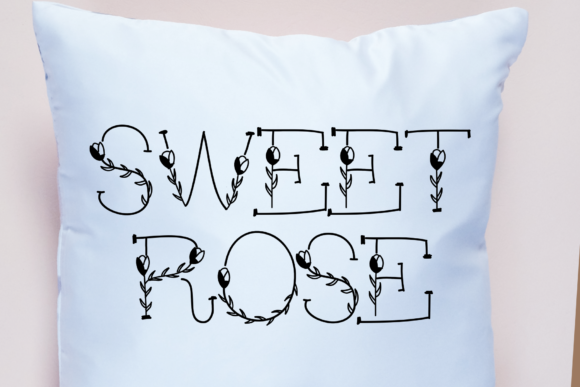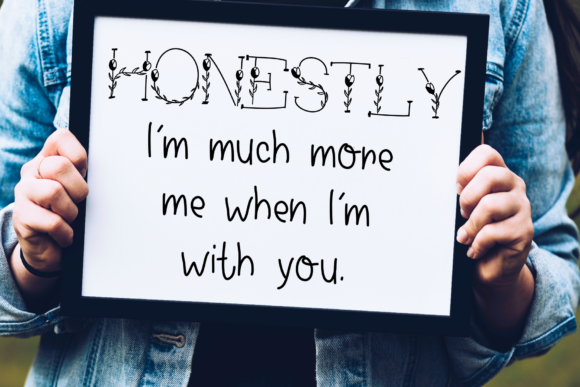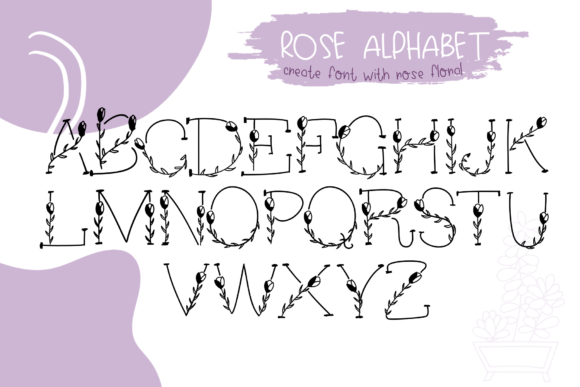
Introduction to Rose Alphabet Font
Have you ever stumbled upon a design element that makes your project truly special? Maybe it’s a vintage texture, a unique illustration, or a beautifully crafted font. For me, it’s always the latter – a well-crafted font can elevate a design from good to great. And today, I want to introduce you to one of my favorite design resources: the Rose Alphabet Font.
This stunning font features delicate, hand-crafted letters adorned with beautiful leaf ornaments, giving it a whimsical and romantic touch. With its high-quality design and transparent background, the Rose Alphabet Font is perfect for designers looking to add a touch of elegance to their projects. Whether you’re working on a wedding invitation, a birthday card, or a creative blog post, this font is sure to bring your design to the next level.
Key Features of Rose Alphabet Font
- Unique Hand-Drawn Design: This font features a beautiful, hand-drawn design that adds a touch of elegance to any creative project.
- Transparent Background: The font includes a transparent background option, allowing you to easily customize and combine with other design elements.
- Perfect for Creative Projects: Rose Alphabet Font is ideal for creative projects such as invitations, greeting cards, posters, and more, where a unique and beautiful font is required.
Honest Review: Rose Alphabet Font
I recently had the chance to work with the Rose Alphabet Font, and I’m excited to share my thoughts on this beautiful design resource. As a designer, I’m always on the lookout for high-quality fonts that can elevate my creative projects. The Rose Alphabet Font definitely delivers.
What works well: ✨ The Rose Alphabet Font is incredibly versatile and can be used for a wide range of designs, from wedding invitations to nursery decor. The font is also super easy to use, with a clear and transparent background that makes it simple to edit and manipulate.
- Easy to use
Overall, I’m really impressed with the Rose Alphabet Font. It’s a beautiful and versatile design resource that can add a touch of elegance to any creative project. If you’re looking for a high-quality font for your next project, I’d definitely recommend giving it a try.
For a high-quality design, use the Rose Alphabet Font on a transparent background to create a beautiful and elegant look. You can also combine it with other design resources, such as images and graphics, to create a unique and creative project.